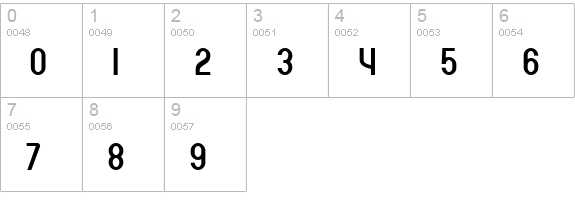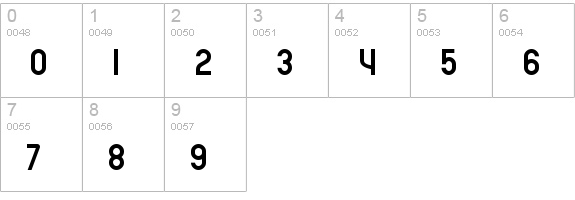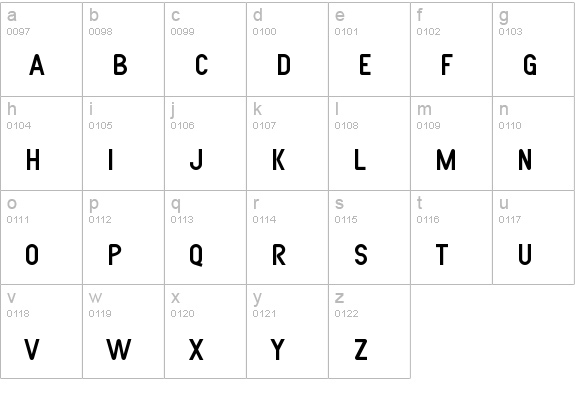
SF Atarian System Font Details
The SF Atarian System font is a stunning display font that effortlessly combines futuristic aesthetics with a touch of retro charm. This versatile typeface is perfect for creating eye-catching designs that demand attention and evoke a sense of nostalgia. With its sleek and geometric letterforms, SF Atarian System font is the embodiment of modernity. Its clean lines and distinct shapes make each character stand out, ensuring clear legibility even at small sizes. Whether you're designing a logo, poster, or website, this font will effortlessly enhance your visual compositions. One of the most remarkable aspects of SF Atarian System font is that it is freely available to download at FontsMarket.com. This means that you can access this exceptional font without any cost, making it even more appealing for designers and creatives on a budget. With its high-quality design and generous licensing terms, SF Atarian System font enables you to bring your creative vision to life without breaking the bank. This font's versatility extends beyond its attractive appearance. SF Atarian System font supports multiple languages, ensuring that you can use it to communicate effectively with a global audience. Its extensive character set includes uppercase and lowercase letters, numbers, punctuation marks, and special symbols, providing you with all the tools you need to create stunning and cohesive designs. Whether you're working on a personal project or a professional assignment, SF Atarian System font is a must-have in your font library. Its bold and futuristic style, combined with its availability as a free download, makes it a valuable resource for designers, artists, and anyone seeking to add a touch of sophistication to their visual creations. Don't miss the opportunity to elevate your designs with this remarkable font – head over to FontsMarket.com and download SF Atarian System font today.